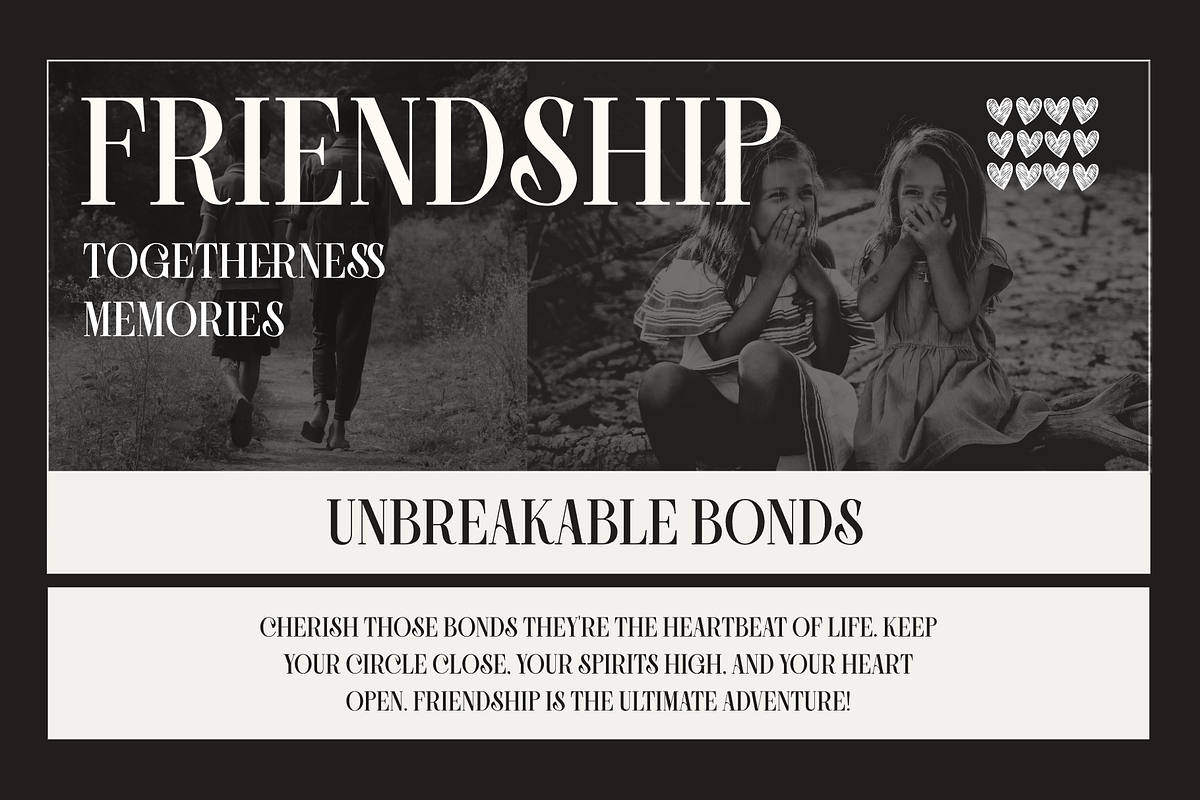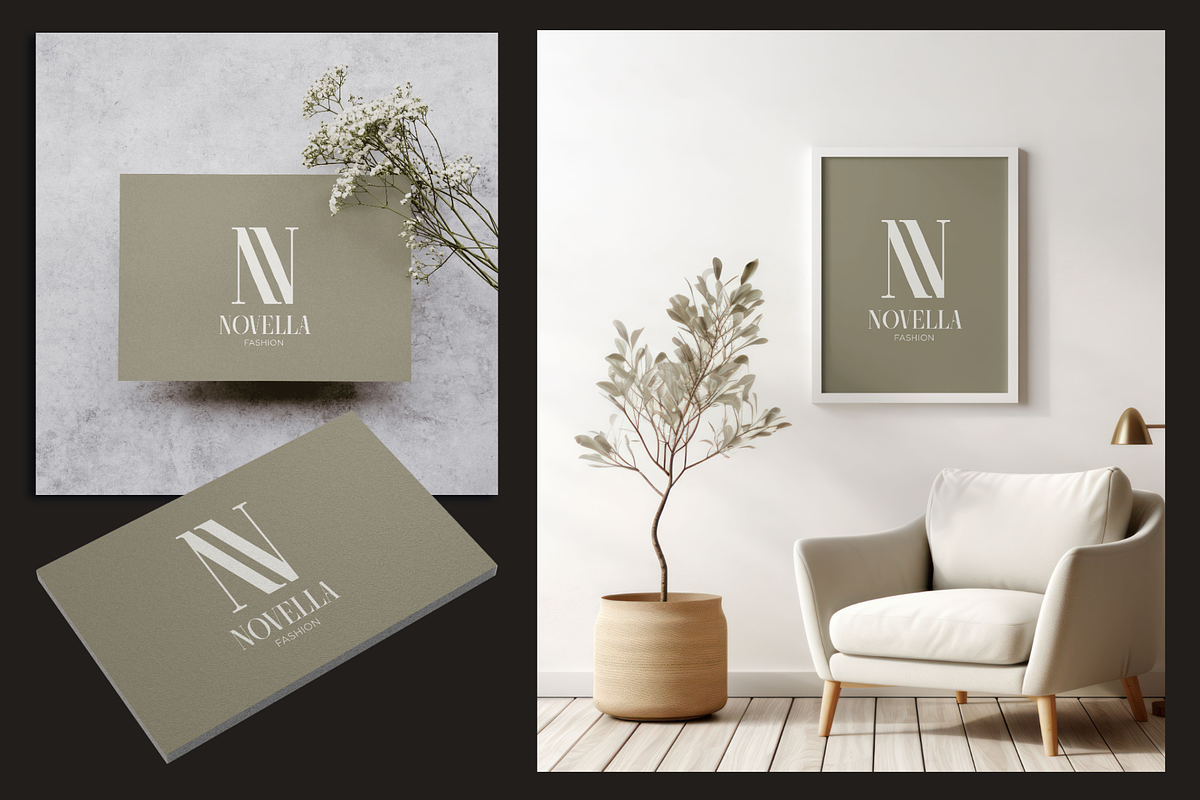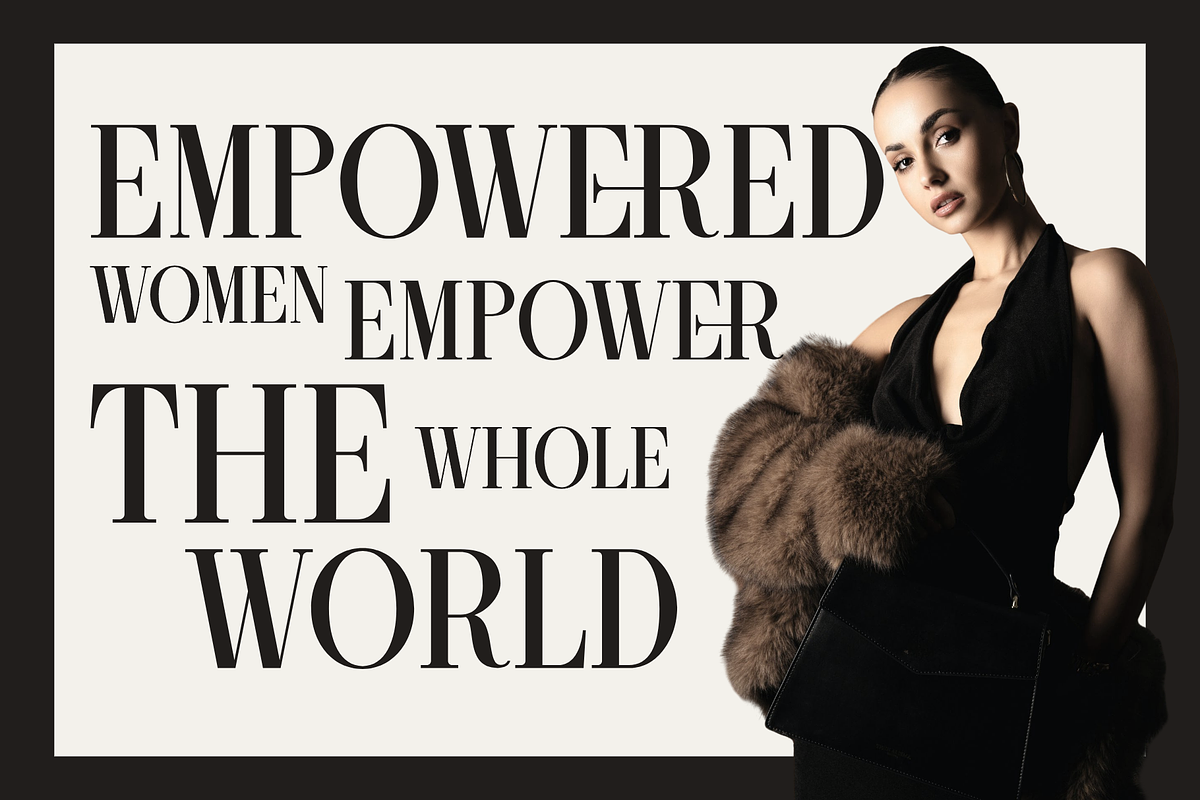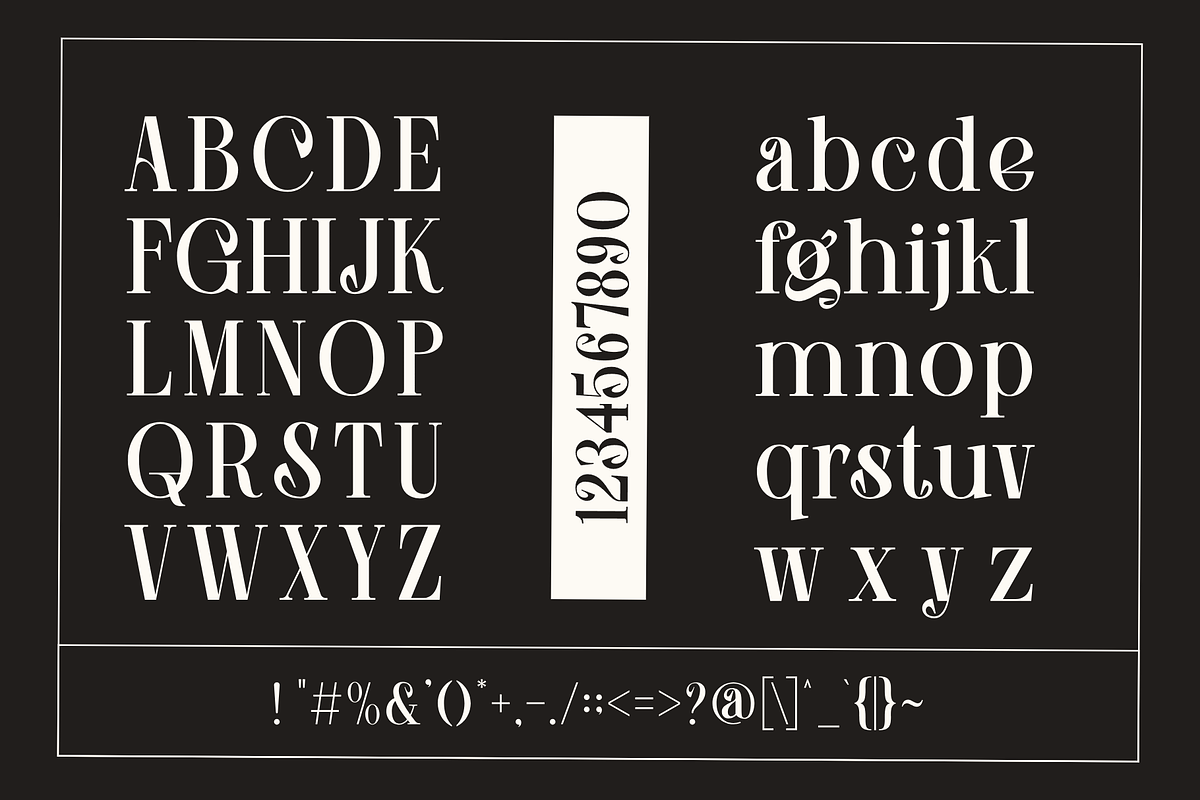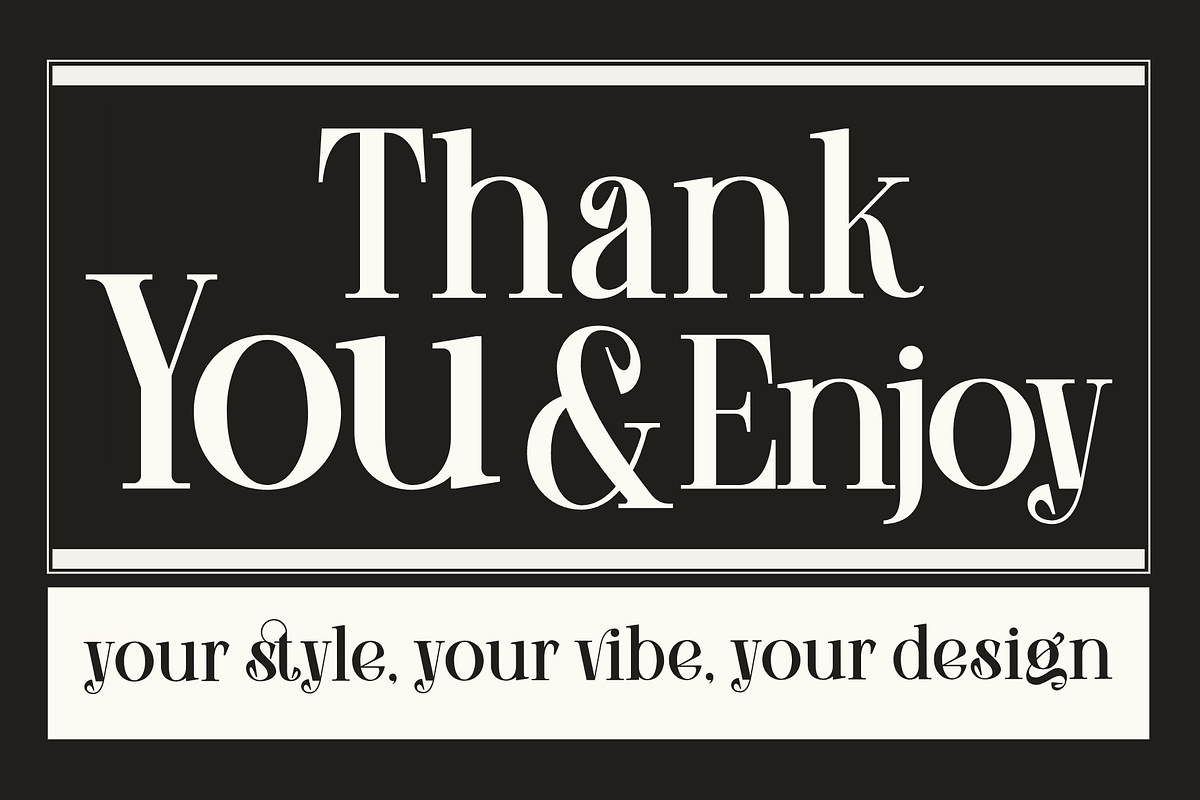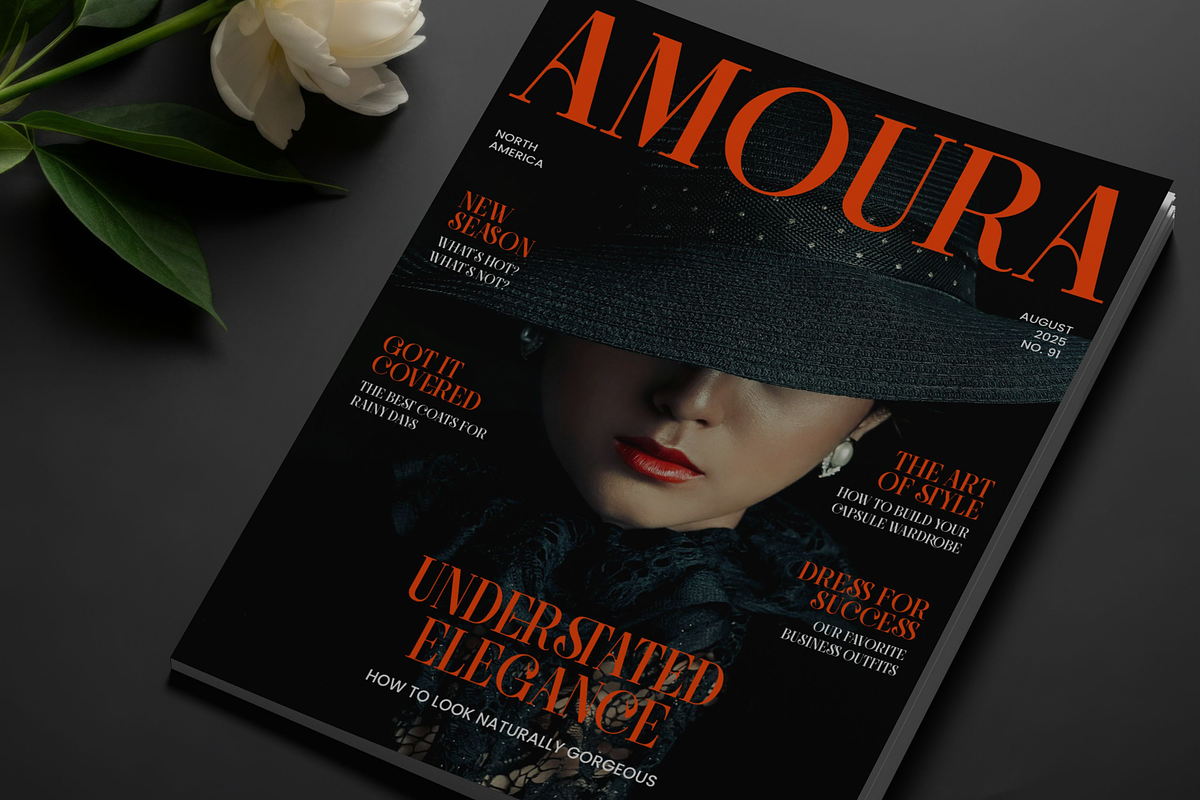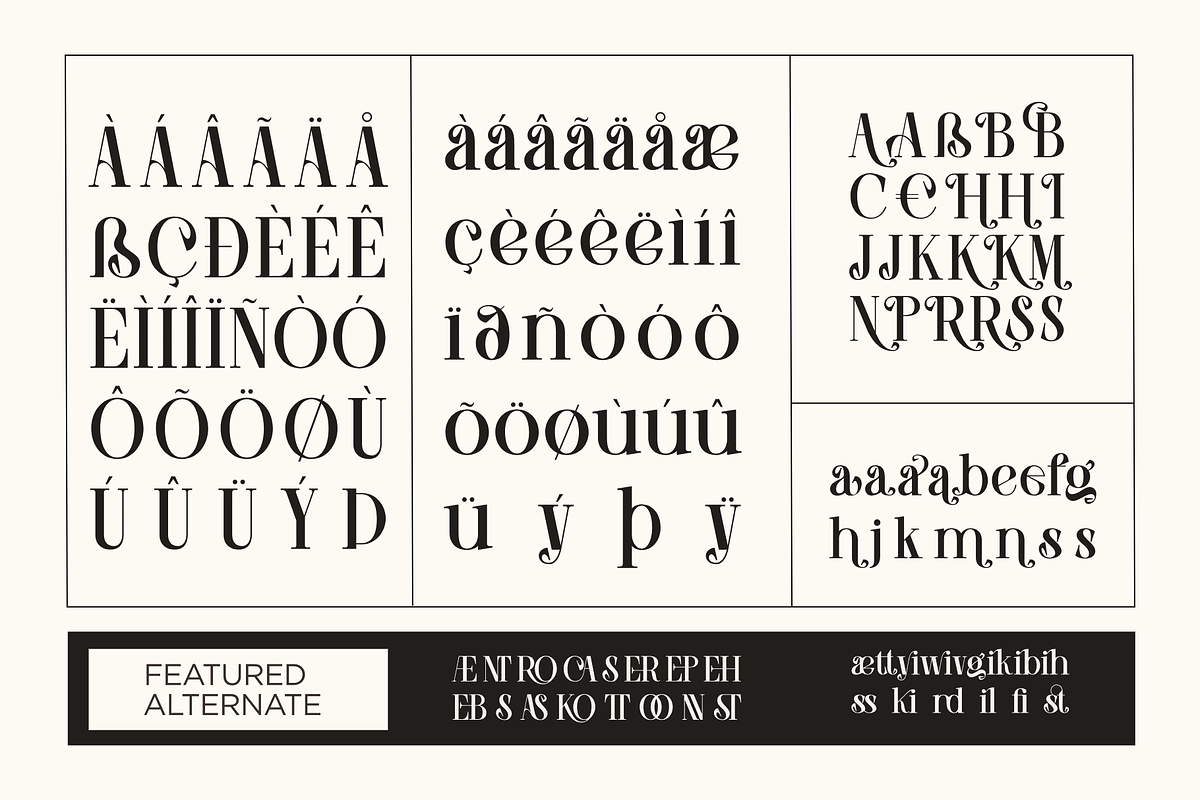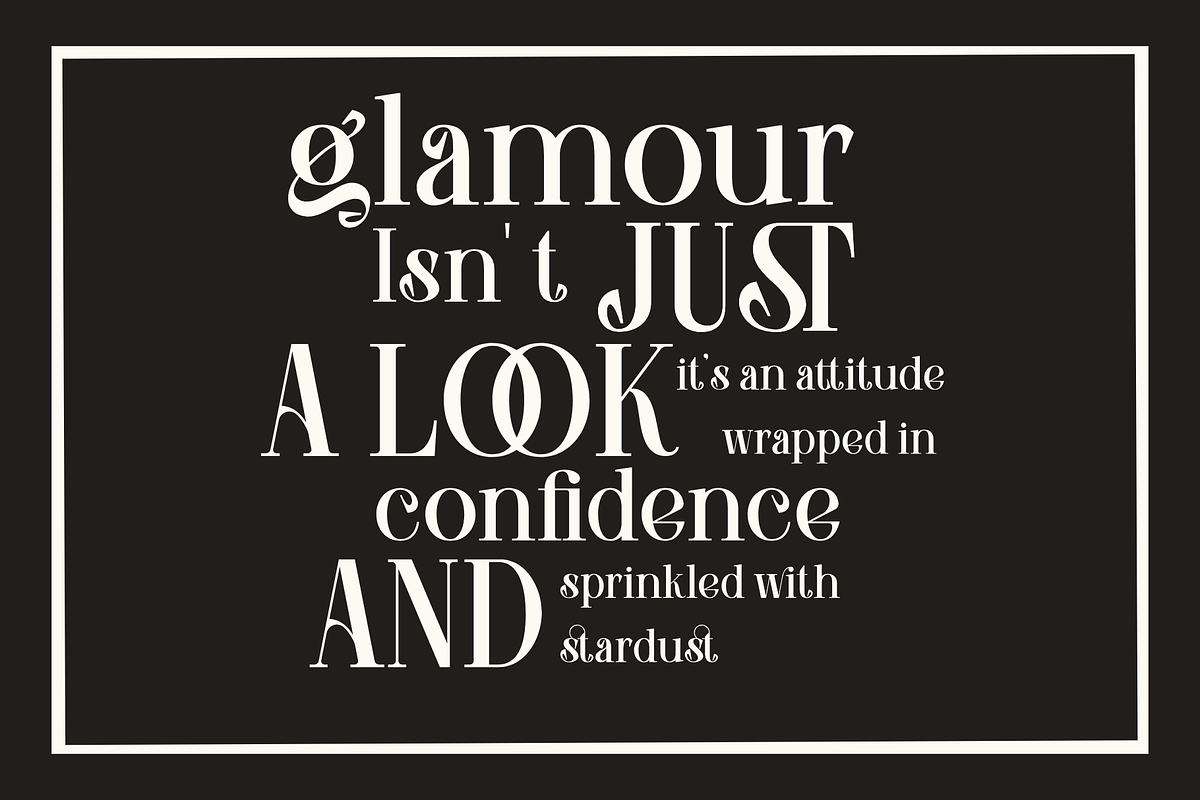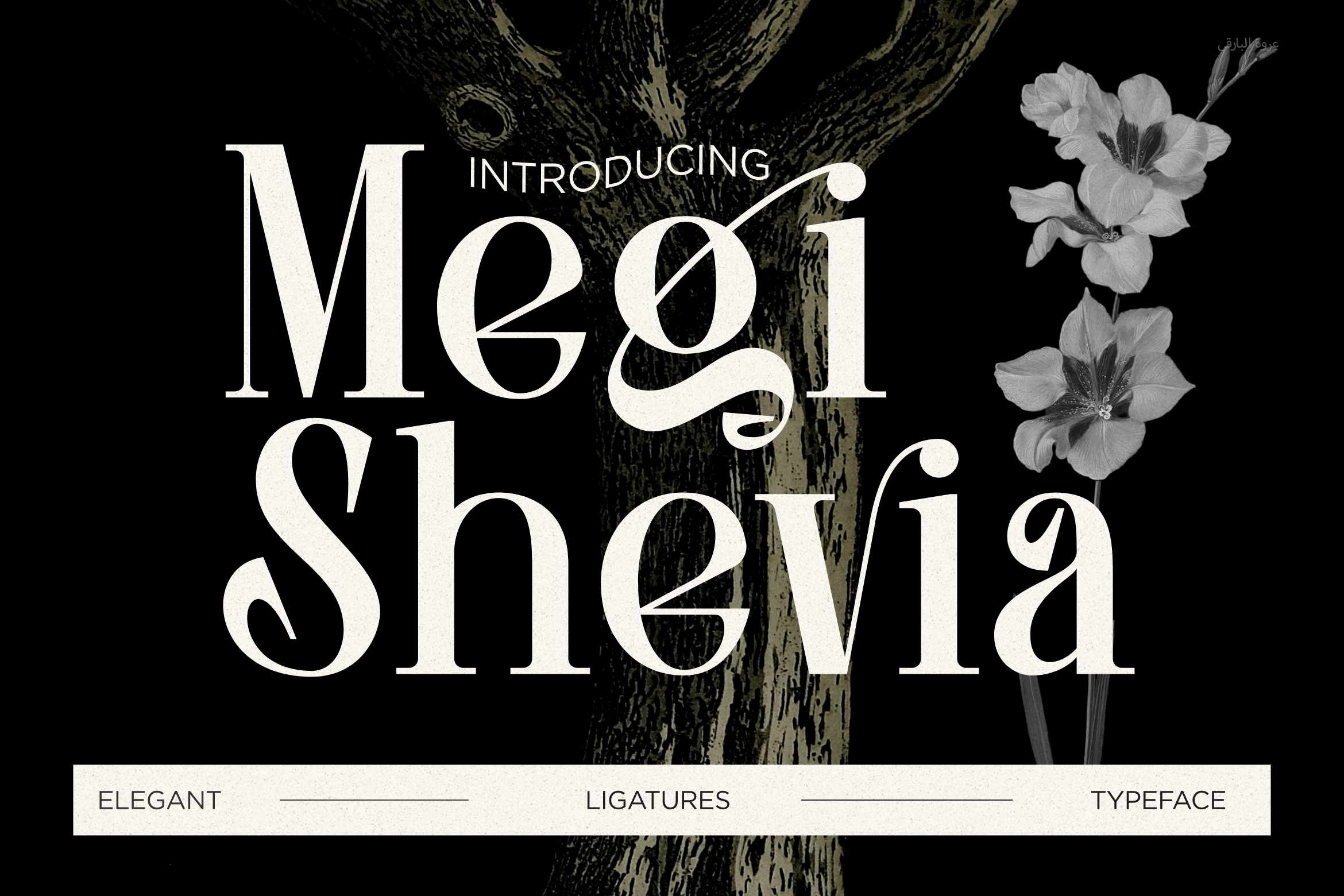
Megi Shevia Modern Serif Font
Megi Shevia Modern Serif Font – A Blend of Elegance and Modernity
Megi Shevia Modern Serif Font is the perfect choice for designers seeking an elegant yet contemporary typeface. Its modern, refined design makes it an ideal fit for a variety of branding needs. Whether you are designing a luxury logo, website, or advertisement, Megi Shevia brings a sophisticated edge to any project.
This font combines proportional letterforms with functional ligatures, offering both style and readability. It’s a font that enhances design clarity while giving your projects a polished, high-end look. Whether for print or digital, Megi Shevia will help you craft stunning, timeless designs.
Key Features of Megi Shevia
Modern Serif with Classic Charm Megi Shevia features a sleek, modern serif design that balances tradition with contemporary aesthetics. This unique style works effortlessly in both minimalist designs and more luxurious projects.
Proportional Letterforms for Clarity Designed with proportional letterforms, Megi Shevia ensures excellent legibility. Your text will be clear and visually appealing, whether in small body text or bold headlines.
Elegant Ligatures for Smooth Flow The functional ligatures in Megi Shevia provide seamless connections between letters. These ligatures add an extra layer of elegance, making your typography look cohesive and refined.
Versatility Across Mediums Whether you are working on print projects like magazines or online projects like websites and social media, Megi Shevia adapts perfectly. It is designed for maximum versatility, ensuring that your designs look fantastic across all platforms.
Multilingual Support With support for multiple languages, Megi Shevia allows you to reach global audiences. Its versatility extends to both local and international markets, ensuring your designs work worldwide.
Why Megi Shevia is Perfect for Your Next Project Megi Shevia’s balanced design makes it the ideal choice for a wide range of applications. Whether you're working on luxury branding, advertising, or website design, it adds both elegance and readability to your text. Additionally, it suits fashion brands, product packaging, and even food industry designs, making it a flexible and reliable option.